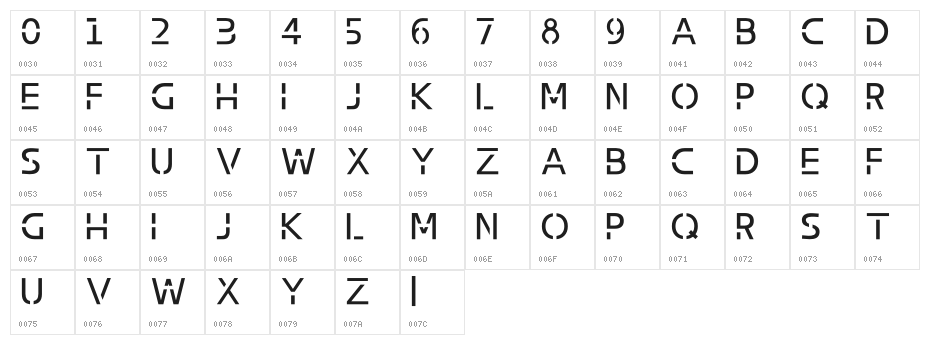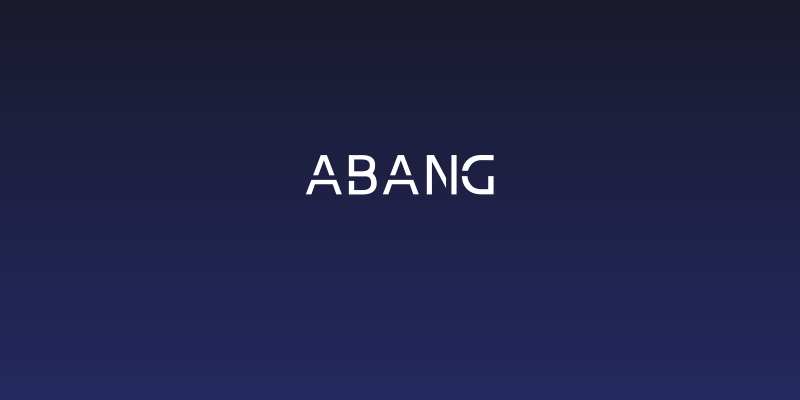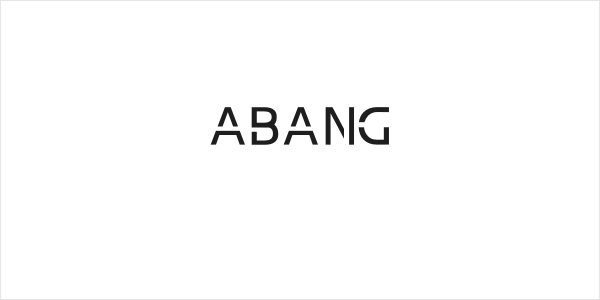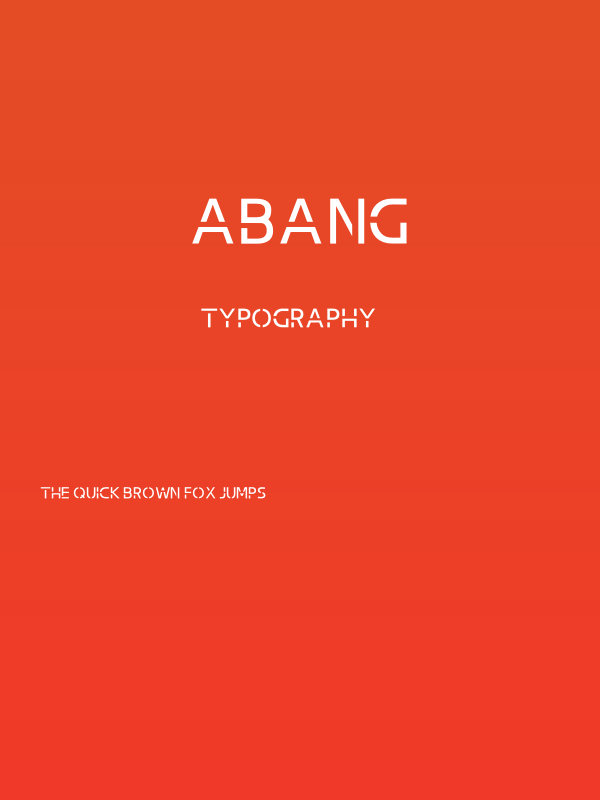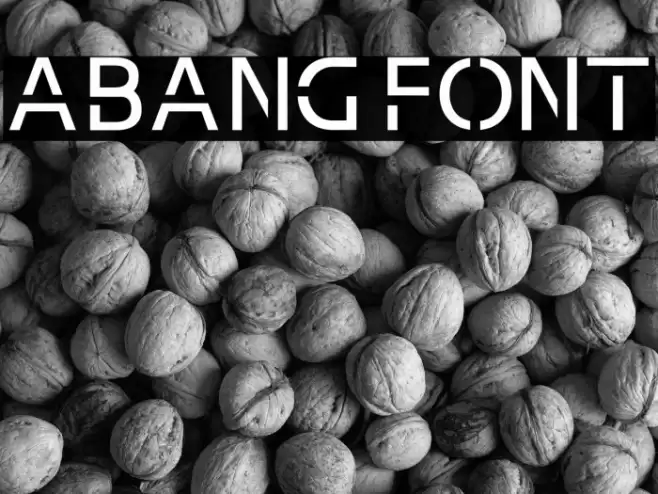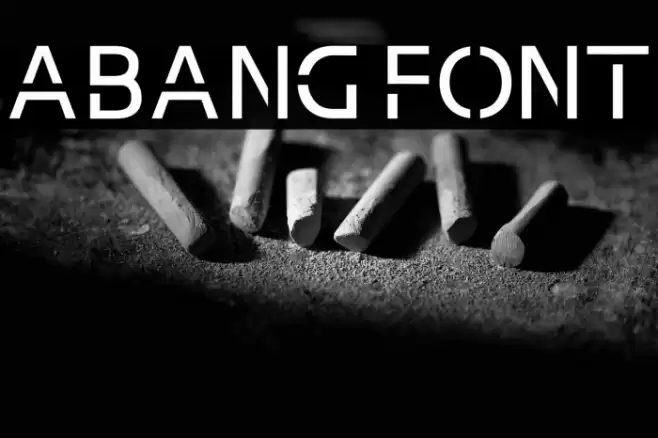
Abang Font
Abang Description
This font features a modern, geometric style with a distinct stencil-like appearance. The characters are constructed with clean, straight lines and sharp angles, creating a futuristic and industrial feel. The uppercase and lowercase letters maintain a consistent design, with some characters having unique cutouts that add to the stencil effect. The numbers follow the same design principles, ensuring uniformity across all characters. This font's bold and structured look makes it ideal for projects that require a strong visual impact.
| Proposed Projects | Ideal for branding, posters, signage, and any project that requires a modern and impactful design. |